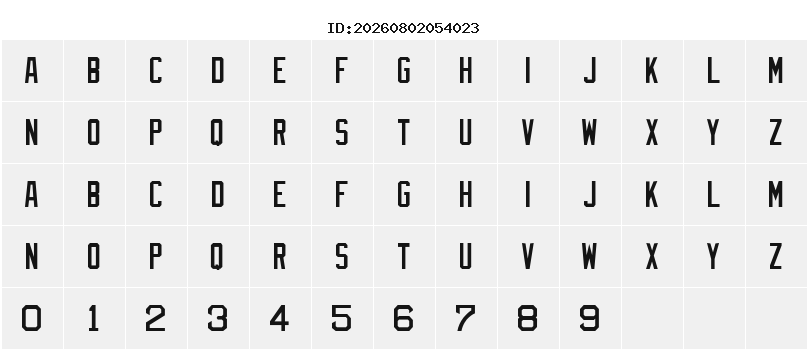
• Font Name: MLB Red Sox
• Full Font Name: MLB Red Sox
MLB Red Sox.ttf is a modern, elegant sans-serif font designed for ultimate readability and visual harmony. Perfect for branding, headlines, web design, and print materials.